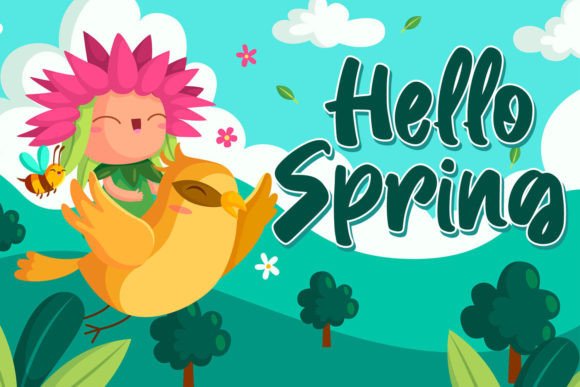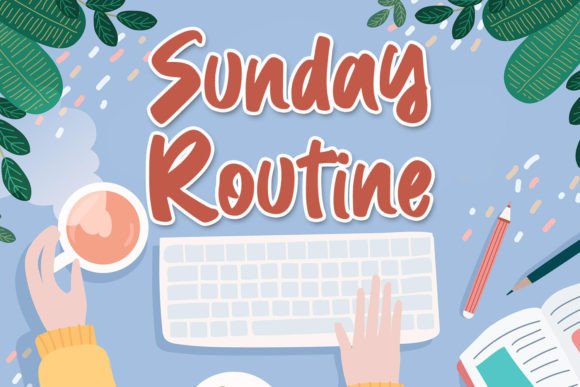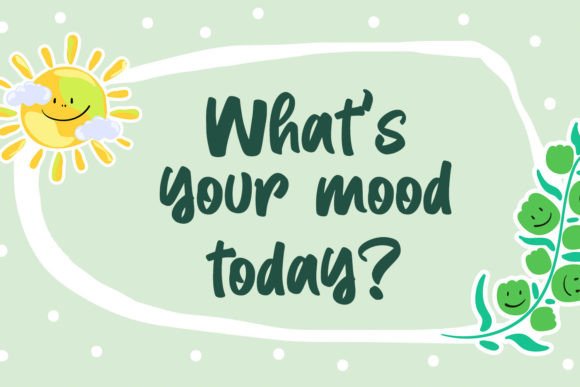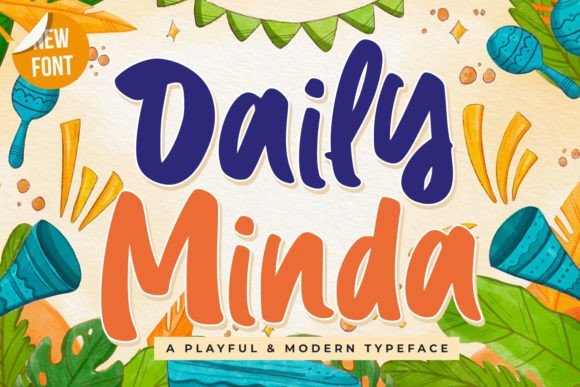
Introduction to Daily Minda Font
Daily Minda is a sweet and trendy display font.
Fall in love with its cute and joyful style and use it to create gorgeous wedding invitations, beautiful stationary art, eye-catching social media posts, and much more .
Key Features of Daily Minda Font
Why Choose Daily Minda Font?
Daily Minda Font offers exceptional quality and versatility, making it a valuable addition to your design toolkit. Whether you’re creating for personal projects or commercial use, Daily Minda Font delivers professional results.